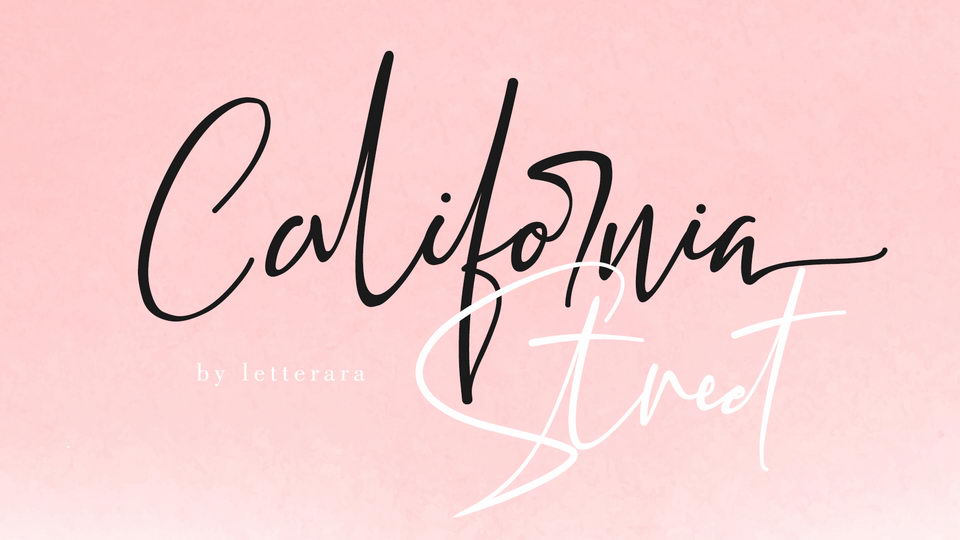
Download California Street font, a perfect handwritten script with a sweet, innocent, light and charming look. California Street font is one-of-a-kind typeface will add a unique charm to any design project!
Designer: Thomas Aradea